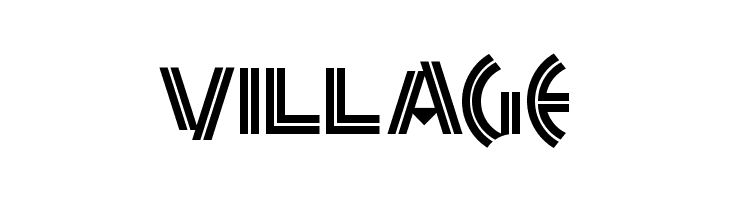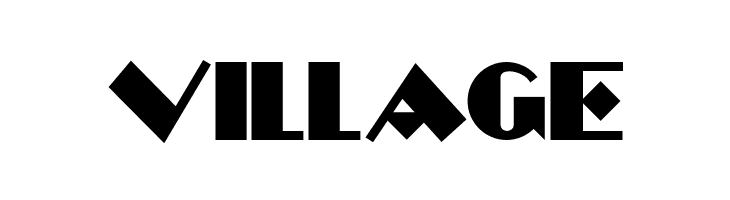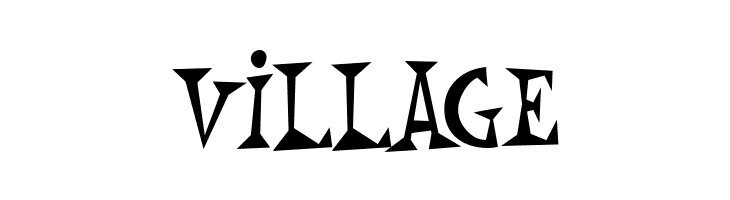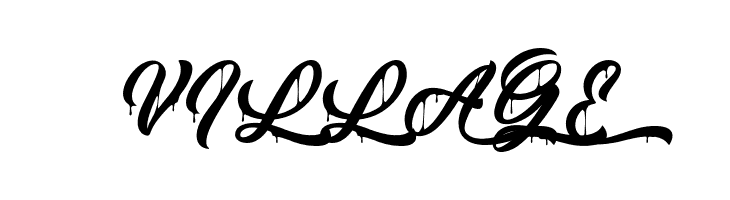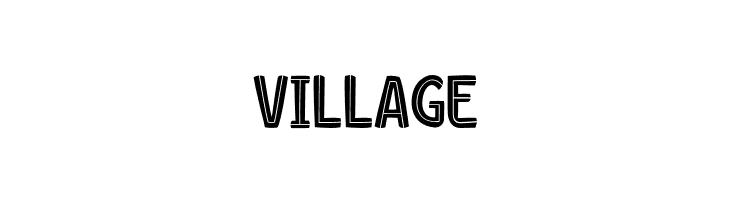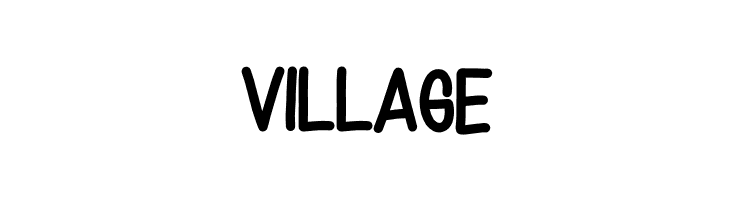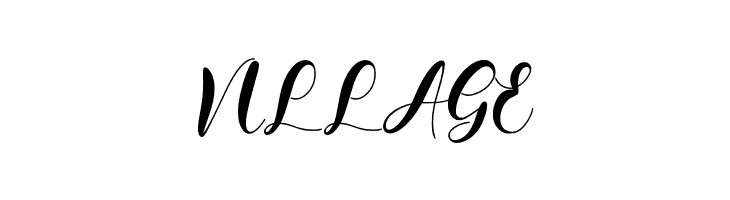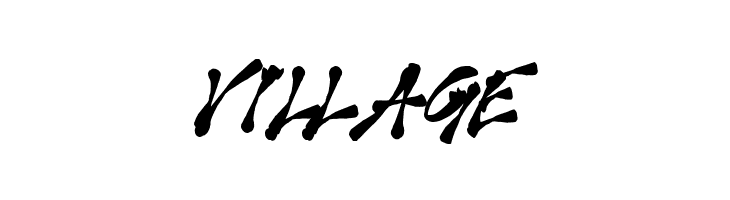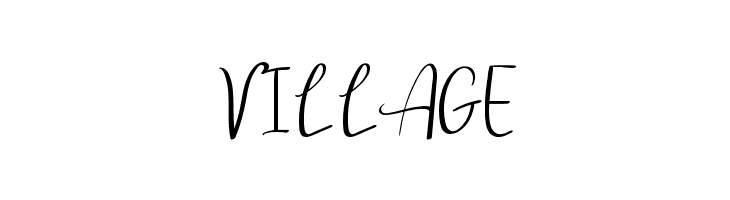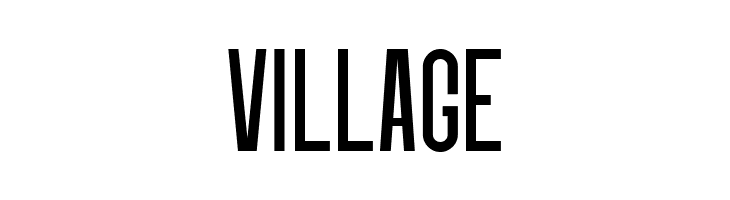
A playful, bold script font with a handwritten feel.
An elegant, cursive font with flowing, artistic strokes.
A sophisticated script font with fluid, cursive strokes and elegant design.
A flowing, cursive font with elegant, interconnected strokes.
A bold, italic serif font with strong, flowing letterforms.
A bold serif font with rounded serifs and a strong, elegant presence.
An elegant serif font with an italic slant and moderate contrast.
A bold, robust serif font with modern elements and balanced spacing.
A bold, expressive handwritten font with fluid, cursive strokes.
A whimsical, cursive script font with elegant loops and swirls.
A bold, geometric font with a 3D effect and modern, decorative style.
A flowing, cursive script font with elegant, connected letters and dynamic contrast.
A graceful and elegant script font with flowing, cursive letterforms.
A cursive, italic font with elegant, flowing strokes and artistic flair.
A flowing, cursive script font with elegant, connected strokes.
A bold, playful font with a hand-drawn, comic book style.
A bold, geometric font with a strong, modern presence.
A bold, geometric font with playful and dynamic character shapes.
A bold and expressive script font with fluid, interconnected strokes.
A bold, graffiti-inspired font with a textured, hand-drawn appearance.
A sophisticated, high-contrast font with elegant, modern styling.
A bold, expressive handwritten font with dynamic strokes.
A bold, distressed font with a vintage, rugged appearance.
An elegant and flowing script font with smooth, cursive letterforms.
A bold, playful script font with a handwritten style.
A bold, decorative font with vintage flair and intricate detailing.
A decorative and playful font with vintage-inspired patterns and dots.
A playful and whimsical script font with elegant, flowing lines and loops.
A bold, high-impact display font with thick, blocky letters and unique horizontal line crossings.
A bold, condensed font with high contrast and a modern, impactful style.
Cartoonish, money-themed decorative font with detailed illustrations.
An elegant and flowing script font with graceful curves and decorative swashes.
A bold, high-contrast serif font with a classic yet modern aesthetic.
A dynamic, brush-style font with expressive strokes and artistic flair.